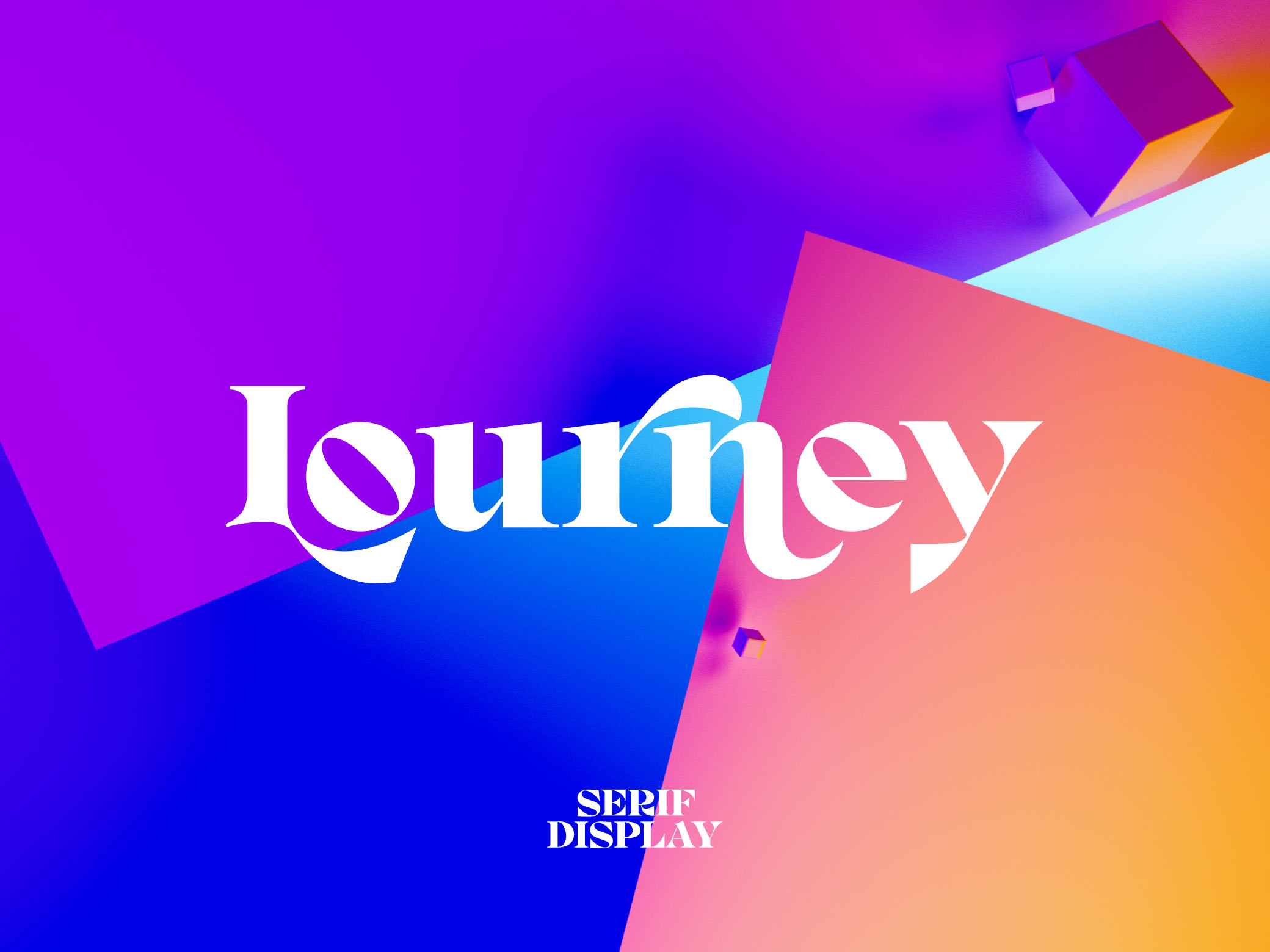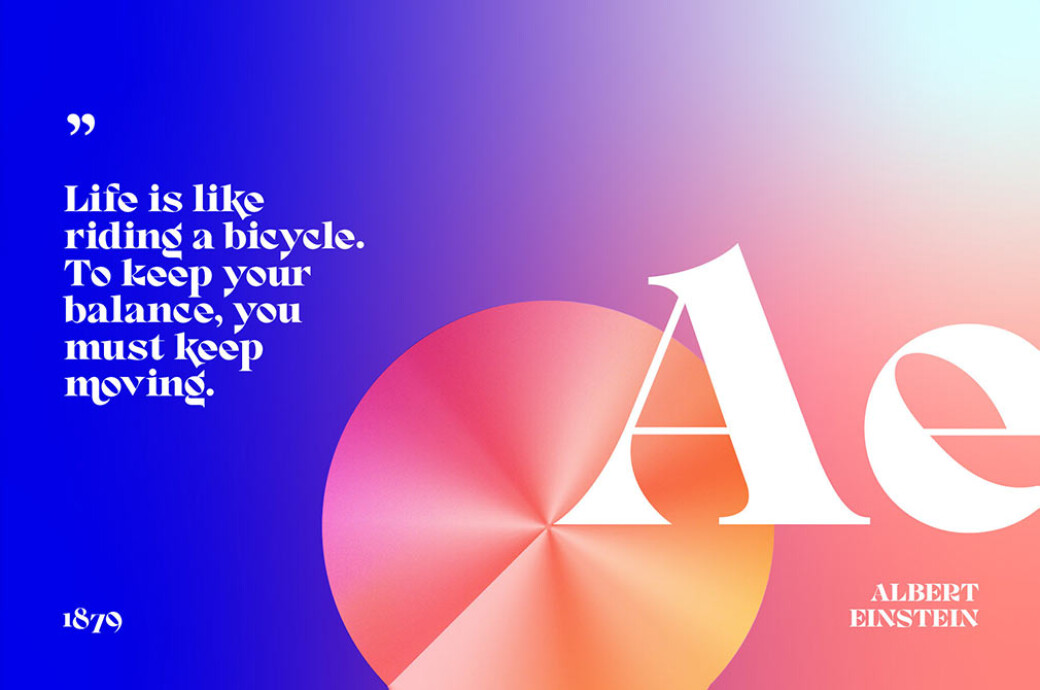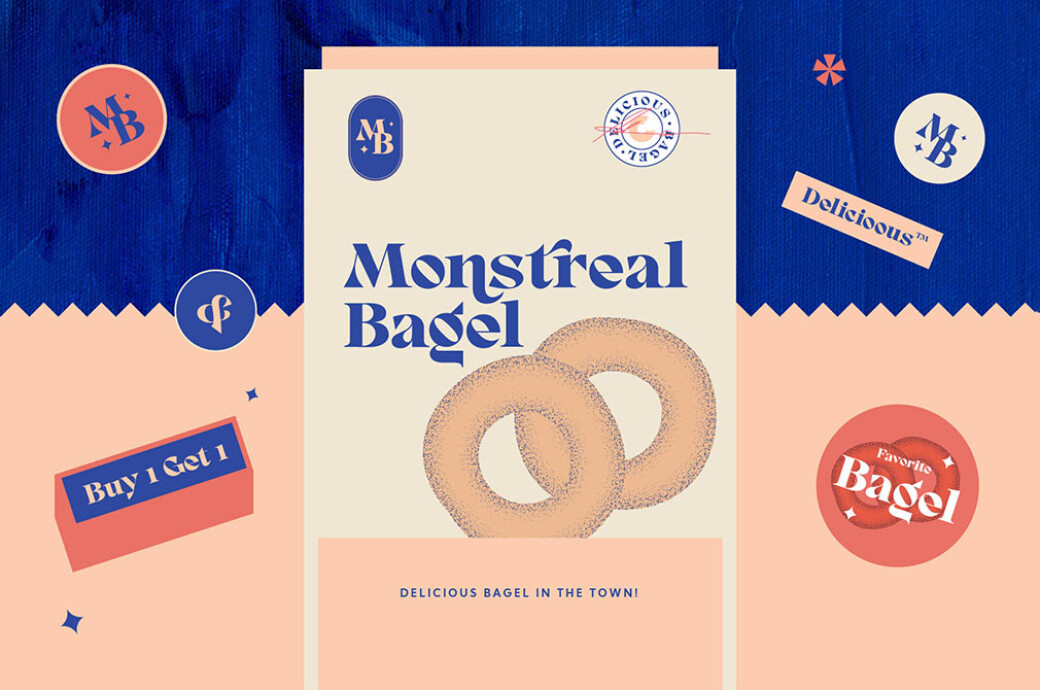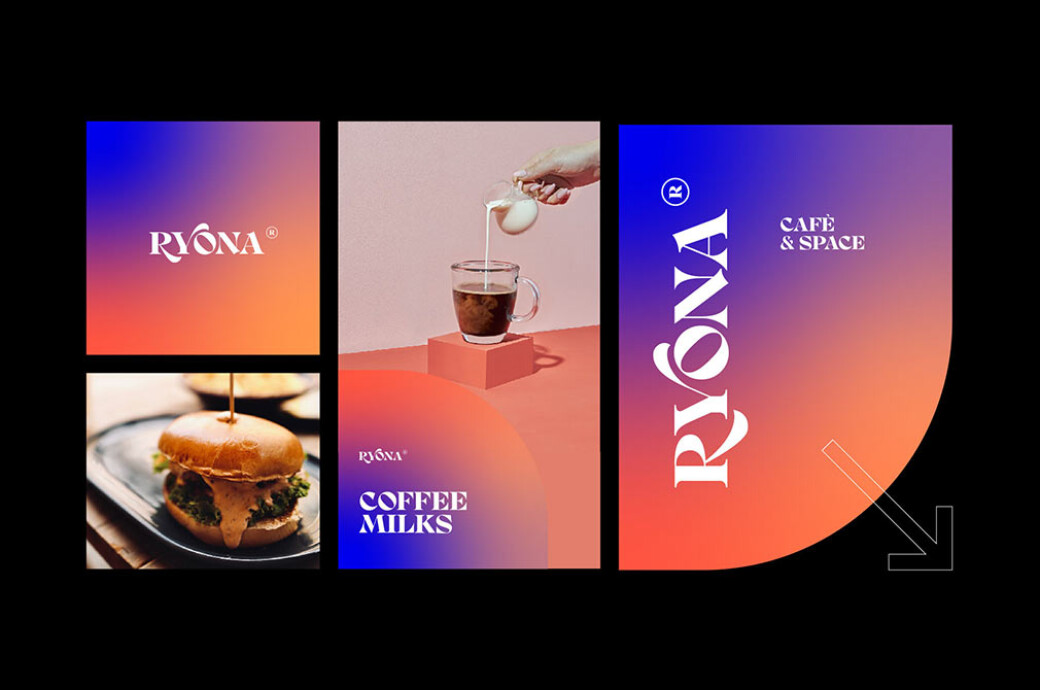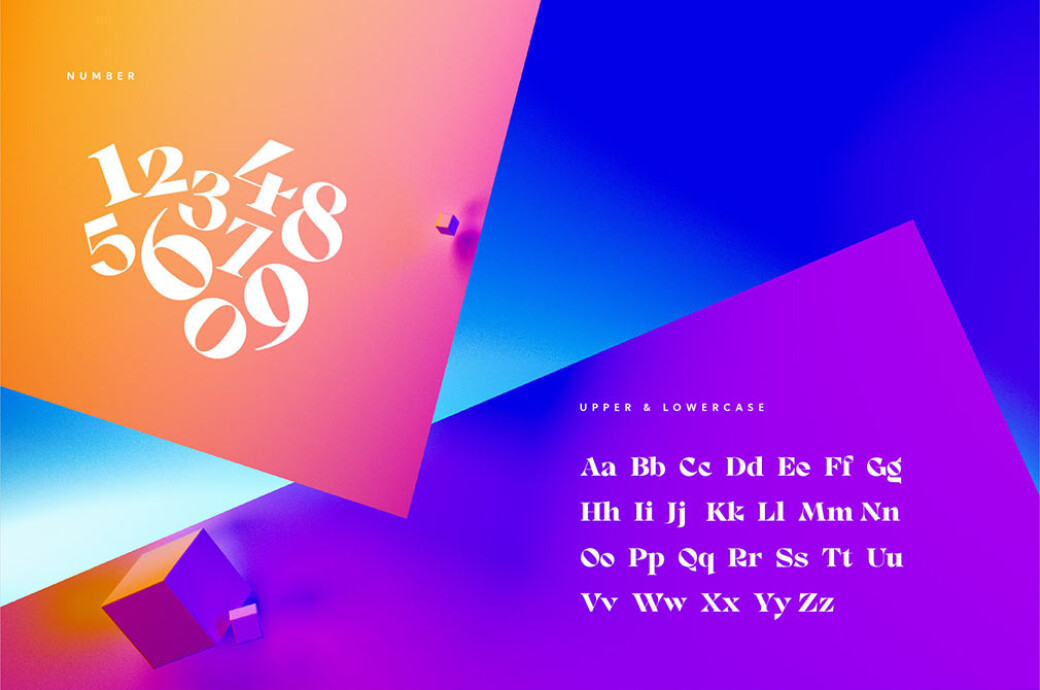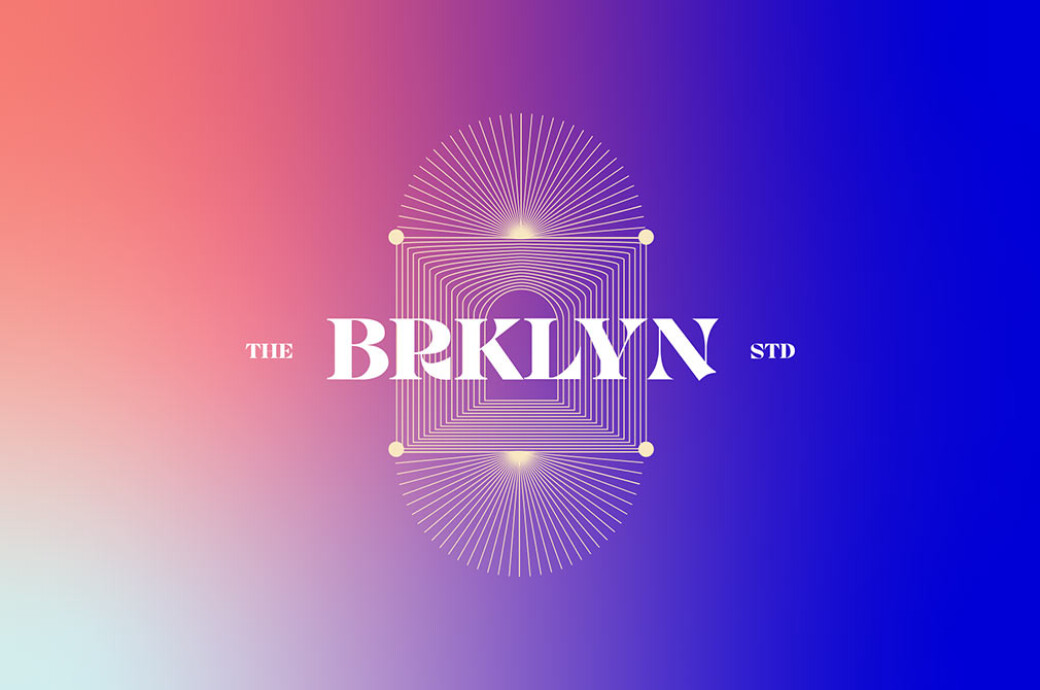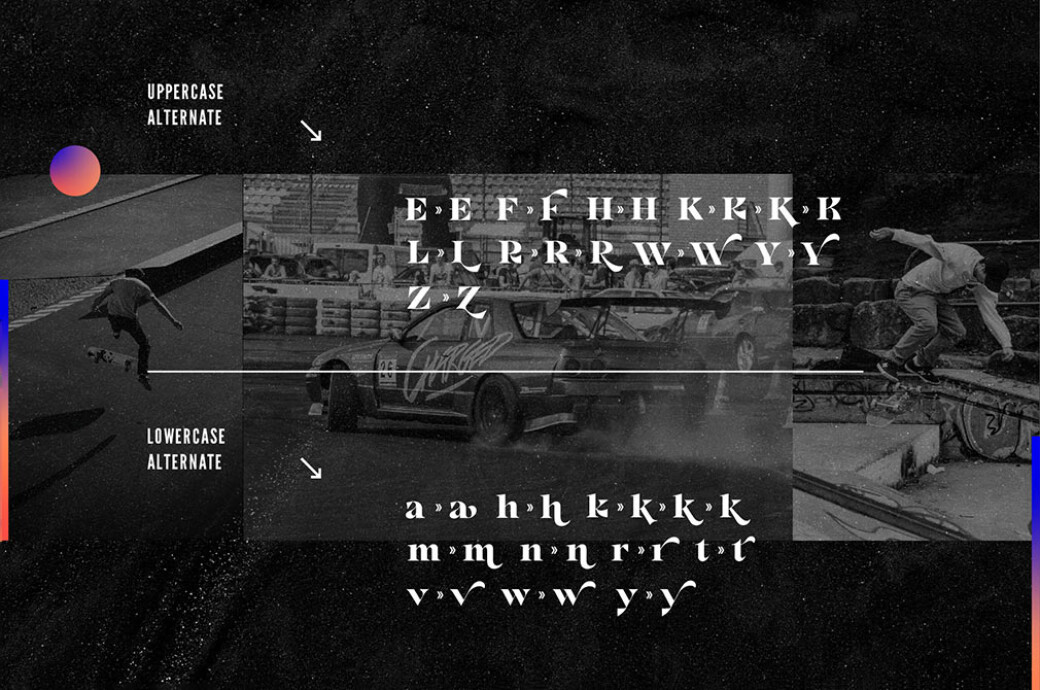
Lourney Display Font + Extras
Classy modern aesthetic and perfection in every stroke and line — introducing Lourney, a font designed as trendy as sharp as no other font might be.Lourney is a serif display font inspired by experimental typography trends that have followed the industry for a few years in a row. It contains uppercase & lowercase characters, numerals, punctuation, symbols, multilingual support, and over 380 glyphs and ligatures. The provided extras, 2 sticker templates, and 6 gradients will help you extend its magnetic perfection and create comprehensive projects with a single toolkit. Lourney will fit logos, magazine headings, brochures, packaging concepts, wedding invitations, and any other design needs that seek bold nature for every element of design.